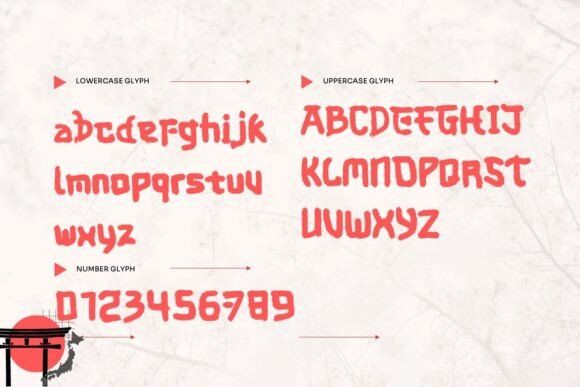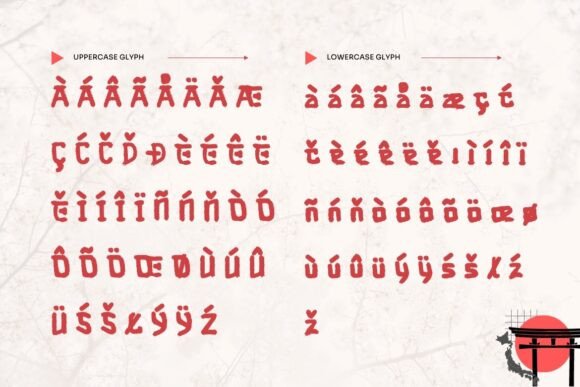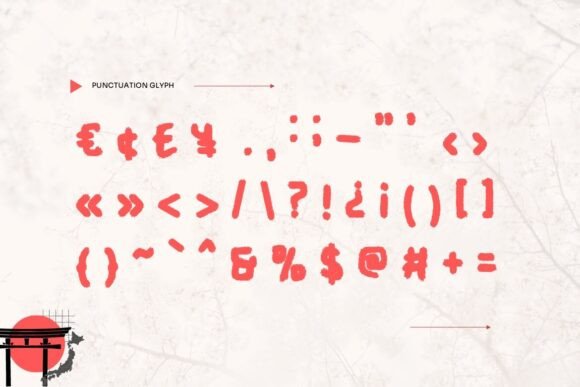
Introduction to Shibuyo Font
You’re sitting at your desk, surrounded by scraps of paper, a cup of steaming coffee, and a blank canvas. The words won’t come, but the brush strokes do. As you begin to paint with your Shibuyo Font brush, the ink flows effortlessly across the page, leaving behind a trail of beautiful, flowing characters. It’s in these moments that we connect with our creativity, and the world around us comes alive. The Shibuyo Font brush is more than just a tool – it’s a gateway to self-expression and artistic freedom.
For designers, the Shibuyo Font brush is a valuable resource, offering a unique opportunity to add a touch of traditional Japanese elegance to their creative projects. With its soft, flexible bristles and high-quality design, it’s the perfect addition to any design library. Whether you’re working on a project that requires a subtle, hand-crafted feel or a bold, expressive statement, the Shibuyo Font brush is sure to deliver.
Imagine having access to this beautiful, high-quality brush at your fingertips, ready to download and use in your next creative project. With the Shibuyo Font brush, you’ll be able to create stunning artwork with a transparent background, perfect for adding a touch of sophistication to your designs. It’s a design resource like no other, and one that’s sure to inspire your next masterpiece.
Key Features of Shibuyo Font
- Unique and stylish font with a transparent background, allowing for versatile usage.
- Perfect for adding a touch of elegance and sophistication to your designs, including logos, graphics, and typography.
- Designed to be highly legible, making it an excellent choice for body text and headings in creative projects.
Honest Review: Shibuyo Font
As a designer, I’m always on the lookout for unique and high-quality design resources. The Shibuyo Font caught my eye, and I was excited to try it out. Here’s my honest review.
- ✨ The font’s bold and playful style is perfect for creative projects that need a bit of flair.
- ✨ The transparent background makes it easy to customize and combine with other design elements.
- ⚠️ The font may not be suitable for all types of projects, particularly those that require a more formal or professional tone.
- ⚠️ Some users may find the font’s bold style overwhelming or difficult to read in certain contexts.
Overall, I was impressed with the Shibuyo Font’s unique style and high quality. While it may not be perfect for every project, it’s a great addition to any designer’s toolkit. If you’re looking for a bold and creative font for your next project, the Shibuyo Font is definitely worth checking out.
Tips for Getting the Most Out of Shibuyo Font
Use the Shibuyo Font with a transparent background to create a unique and eye-catching design. Experiment with different font sizes and styles to add depth and interest to your project.
The Shibuyo Font is perfect for:
– Creating social media graphics and posts
– Designing logos and branding materials
– Creating presentations and reports
– Adding a touch of elegance to any design project
Alternatives to Shibuyo Font
Great Vibes Font is a beautiful, high-quality script font perfect for creative projects that require a touch of elegance. It’s available for free download and features a transparent background, making it ideal for overlaying on images or videos. When to use: wedding invitations, greeting cards, or any project that needs a romantic feel.
Great Vibes Font compares to Shibuyo Font in terms of its flowing, handwritten style, but it has a more refined and sophisticated look. It’s a great alternative for designers who want a similar feel without the bold, geometric aspects of Shibuyo.